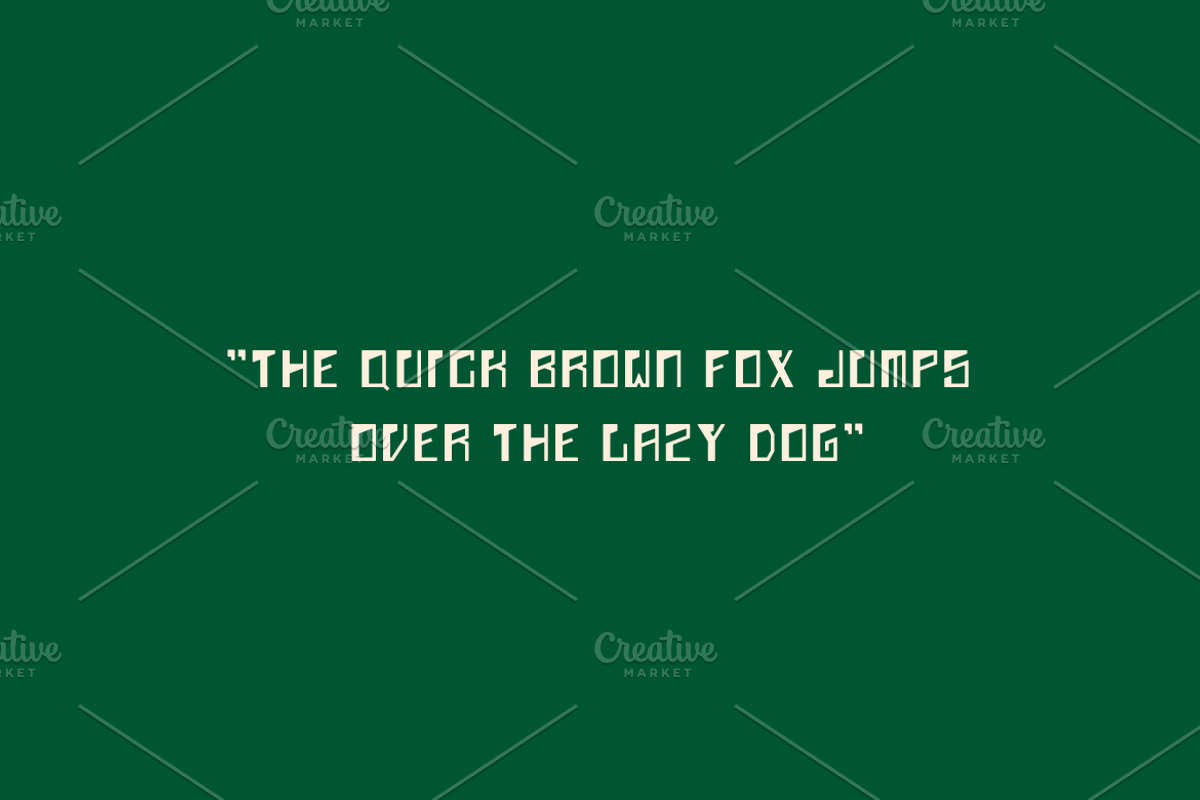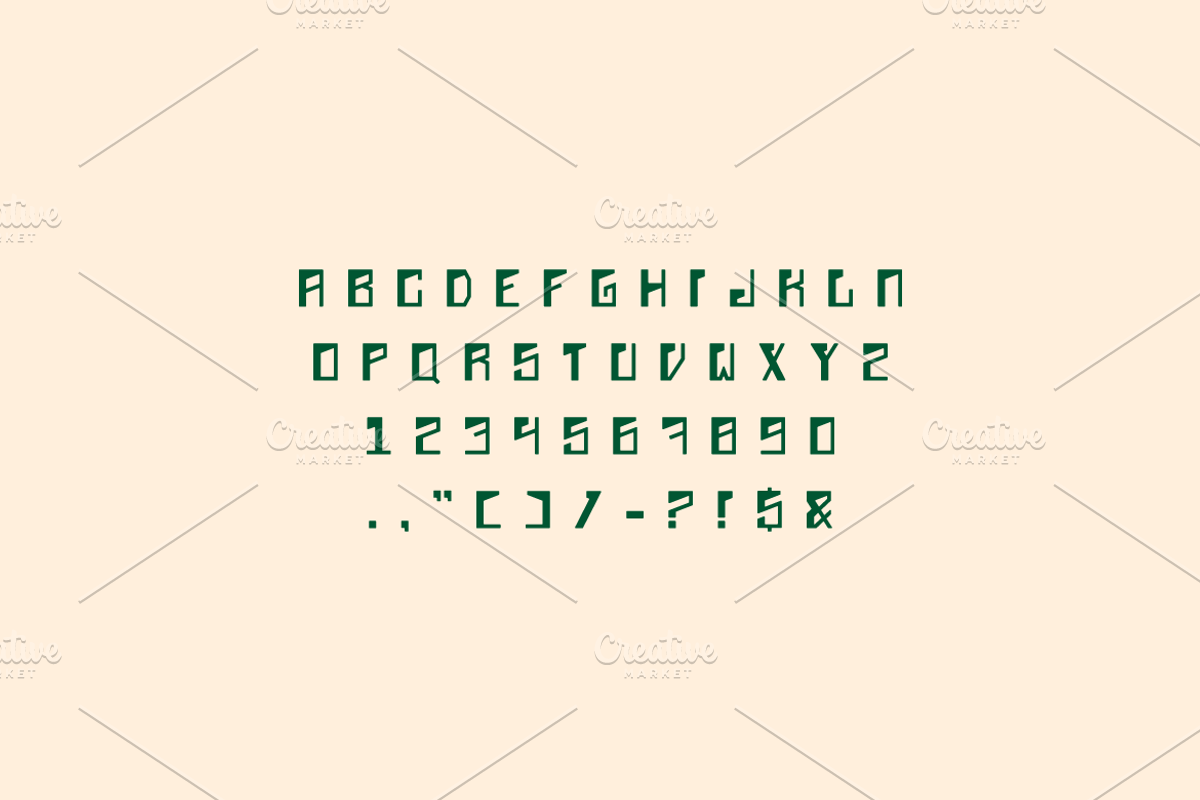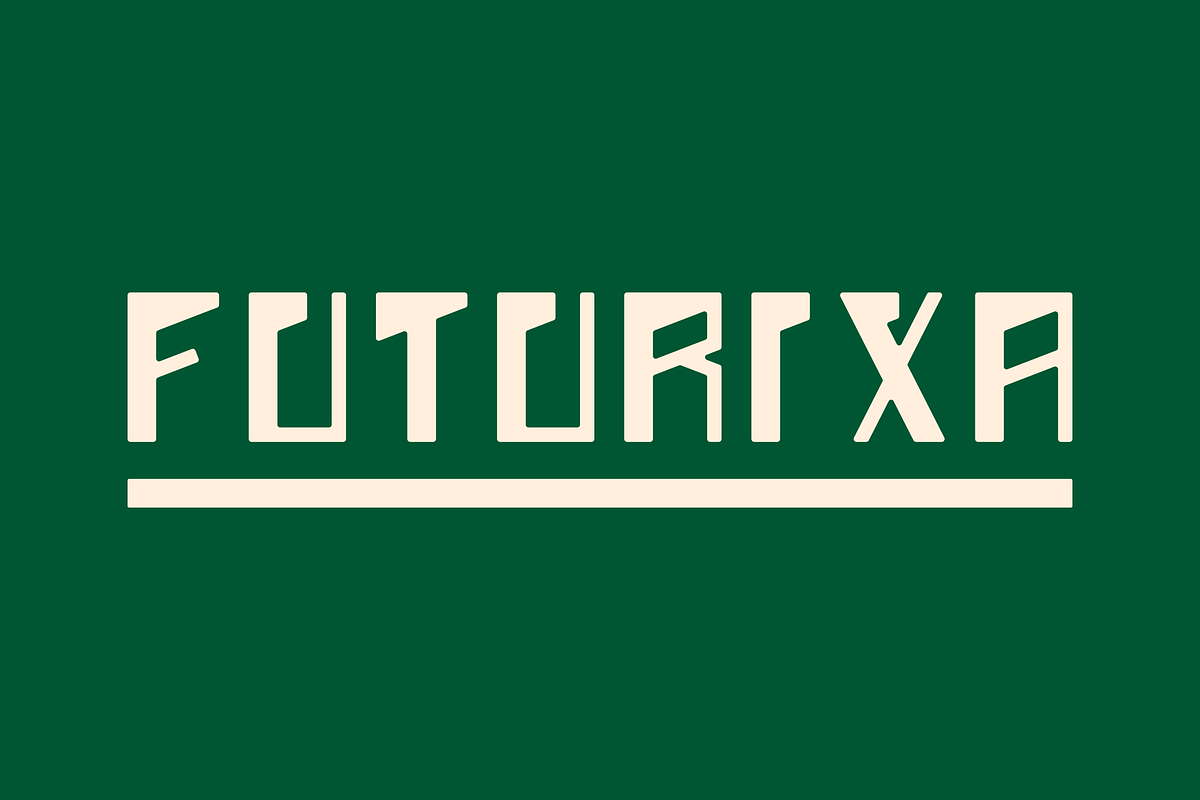
Futurixa- Modern Condensed Sans
Futurixa is a modern condensed sans-serif typeface designed for sleek and contemporary projects. Its clean lines and compact structure make it perfect for branding, editorial design, web design, headlines, and more. Elevate your designs with the futuristic and minimalist charm of Futurixa!